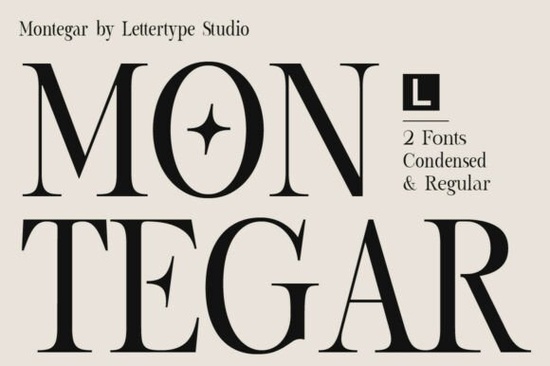
If you’re looking for a serif font that feels both luxurious and editorially sharp, Montegar Font might be exactly what your next project needs. Designed by Diki Pradipta Tri Atmojo of Pradipta Creative & Lettertype Studio, Montegar brings together elegant proportions, subtle star-like accents, and crisp serifs that work beautifully in fashion layouts, boutique branding, or even cinematic posters.
It’s not trying to be flashy instead, it leans into quiet confidence. The kind of typeface that looks just as good on a perfume bottle as it does in a high-end magazine spread. If you’ve used fonts like Personal Vogue or Muzzaro before, you’ll appreciate how Montegar balances personality with readability. It doesn’t shout; it whispers with intention.
What makes Montegar stand out from other luxury serifs?
Most premium serifs aim for elegance, but Montegar adds small, thoughtful details that give it character without clutter. You’ll notice tiny star-inspired flourishes tucked into certain glyphs not enough to distract, but just enough to make the font feel unique. The contrast between thick and thin strokes is dramatic but controlled, which helps it hold up well in both print and digital formats.
There are two main styles: Regular and Condensed. This gives you flexibility when laying out headlines or tight spaces. Need something that fits neatly into a jewelry tag? Try the Condensed. Want full presence on a poster? Go Regular. Both include alternates and ligatures 12 alternates and 17 ligatures total so you can tweak letterforms to match your brand’s voice.
- Regular Style: Ideal for editorial spreads, hero text, and packaging.
- Condensed Style: Perfect for narrow spaces, tags, or layered typography.
- Ligatures & Alternates: Add personality without breaking legibility.
Where should you use this font?
Montegar was built with real-world applications in mind. Here’s where it shines:
- Fashion editorials clean, confident, and editorially refined.
- Perfume or beauty packaging those subtle star accents add a touch of magic.
- Boutique hotel identities upscale but never stiff.
- Cinematic posters strong presence with artistic flair.
- Small business branding if you sell handmade candles, artisanal goods, or curated experiences, this font helps communicate quality.
How does it compare to similar fonts on Creative Fabrica?
If you’ve browsed the serif category recently, you’ve probably seen options like Carnival Lights or Blistaro. Carnival Lights leans playful and retro, while Blistaro has more geometric structure. Montegar sits in a different space it’s more editorial, more fashion-forward, with a whisper of celestial charm.
It’s also more versatile than many “luxury” fonts that sacrifice readability for style. Montegar keeps its letters clear and spaced well, even at smaller sizes. That’s rare in display fonts, and it’s one reason why designers keep coming back to it for client work.
Any tips for getting the most out of Montegar?
Yes don’t overdo the alternates or ligatures. They’re there to enhance, not overwhelm. Use them sparingly in logos or key headlines. For body text or longer copy, stick to the standard characters. Pair Montegar with a clean sans-serif (like Helvetica Neue or Avenir Next) to let it breathe and stand out.
Also, play with scale. Montegar looks stunning when blown up large think window displays, event banners, or social media headers. But it also holds its own at medium sizes, like product labels or menu cards. Just avoid going too small; those fine serifs need room to show off.
If you answered yes to most of these, Montegar will likely become a go-to in your toolkit. It’s the kind of font that doesn’t demand attention it earns it quietly, through craftsmanship and restraint.